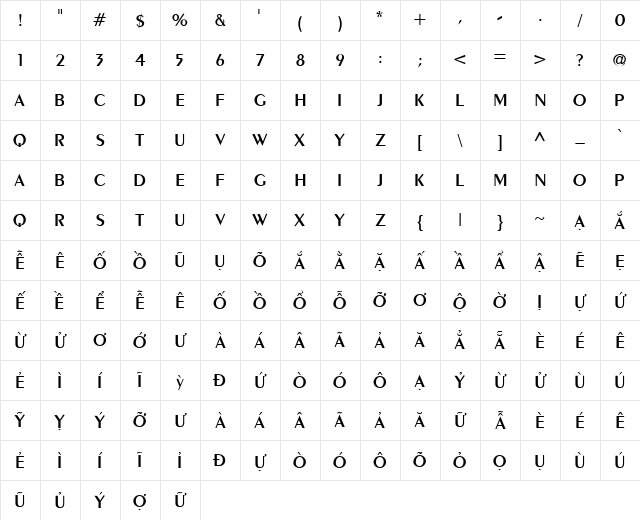
Complete VI Co May Hoa Normal glyph index. Displaying only characters natively supported by VI Co May Hoa Normal font.
VI Co May Hoa is a composed and adaptable typeface that performs quietly and consistently across a wide range of design contexts.